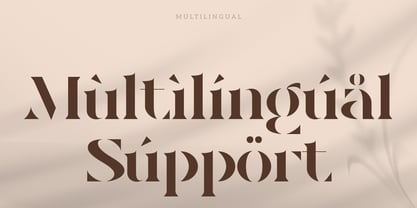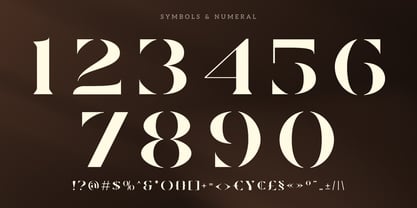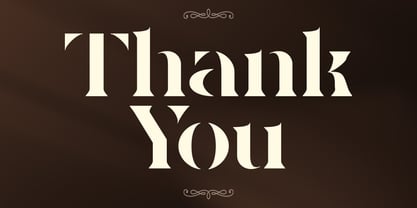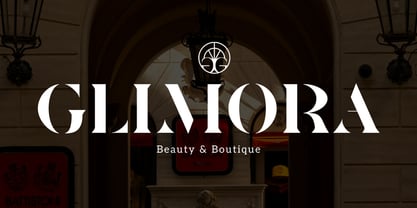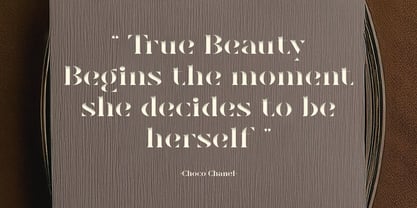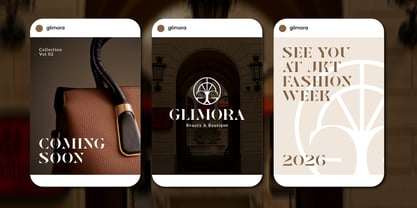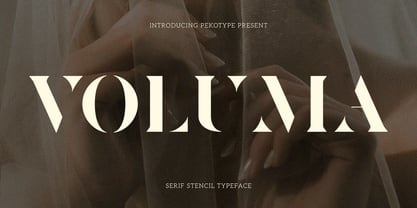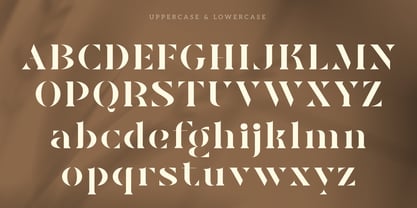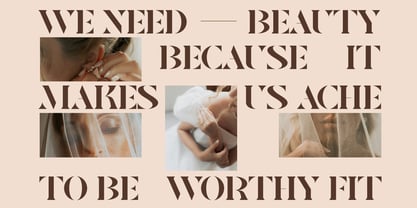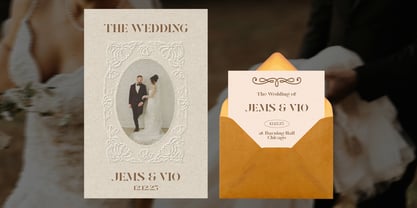
Voluma
by Pekotype
The Voluma Font Family was designed by Galang Bryan and published by Pekotype. Voluma contains 1 styles. More about this family
VOLUMA is a modern display font that combines minimalist style with elegant details. Designed for branding, logos, fashion projects, packaging, invitations, and social media content, it brings a clean and premium look to any design. With multilingual support and a timeless character, VOLUMA is a versatile choice for creating stylish, professional, and memorable visual identities.